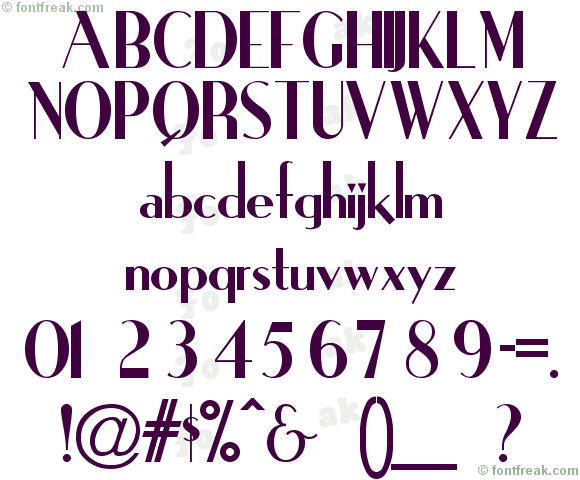
Ironick-Normal
About Ironick
Ironick, designed by Nick Curtis, is a captivating display font that merges modernity with a touch of whimsy. This freeware typeface stands out due to its unique letterforms that exhibit a blend of angular and rounded shapes, making it versatile for various design projects. The stroke weight is consistent, providing a clean appearance, while the subtle contrast in line thickness adds a layer of sophistication. The spacing is well-balanced, allowing for easy readability even at larger sizes.
Ideal for creative applications, Ironick is particularly suited for bold statements. It shines in contexts such as movie posters, where its distinctive style can attract attention and convey a sense of intrigue. Additionally, this font works beautifully for restaurant menus, giving a modern twist to traditional dining experiences. Its playful nature makes it an excellent choice for children's book covers or promotional materials aimed at younger audiences. Graphic designers and content creators will find Ironick to be an invaluable asset, offering a fresh look that enhances any project.
What truly makes Ironick stand out is its ability to capture attention without overwhelming the viewer. Its distinctive appearance allows it to be memorable while remaining functional, striking the perfect balance between artistic flair and usability. For those seeking a fresh typeface to elevate their designs, Ironick font free download offers an excellent opportunity to explore its potential in various creative endeavors.